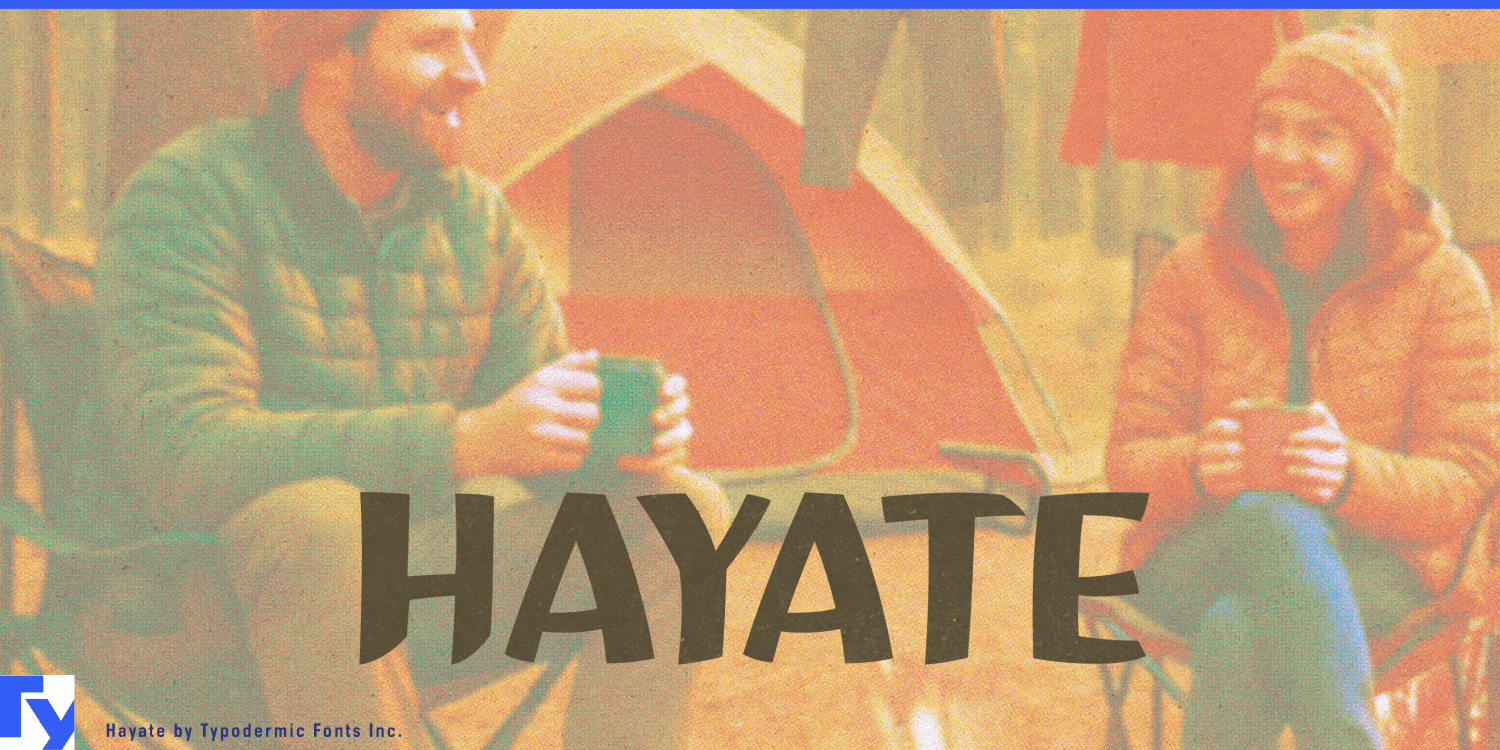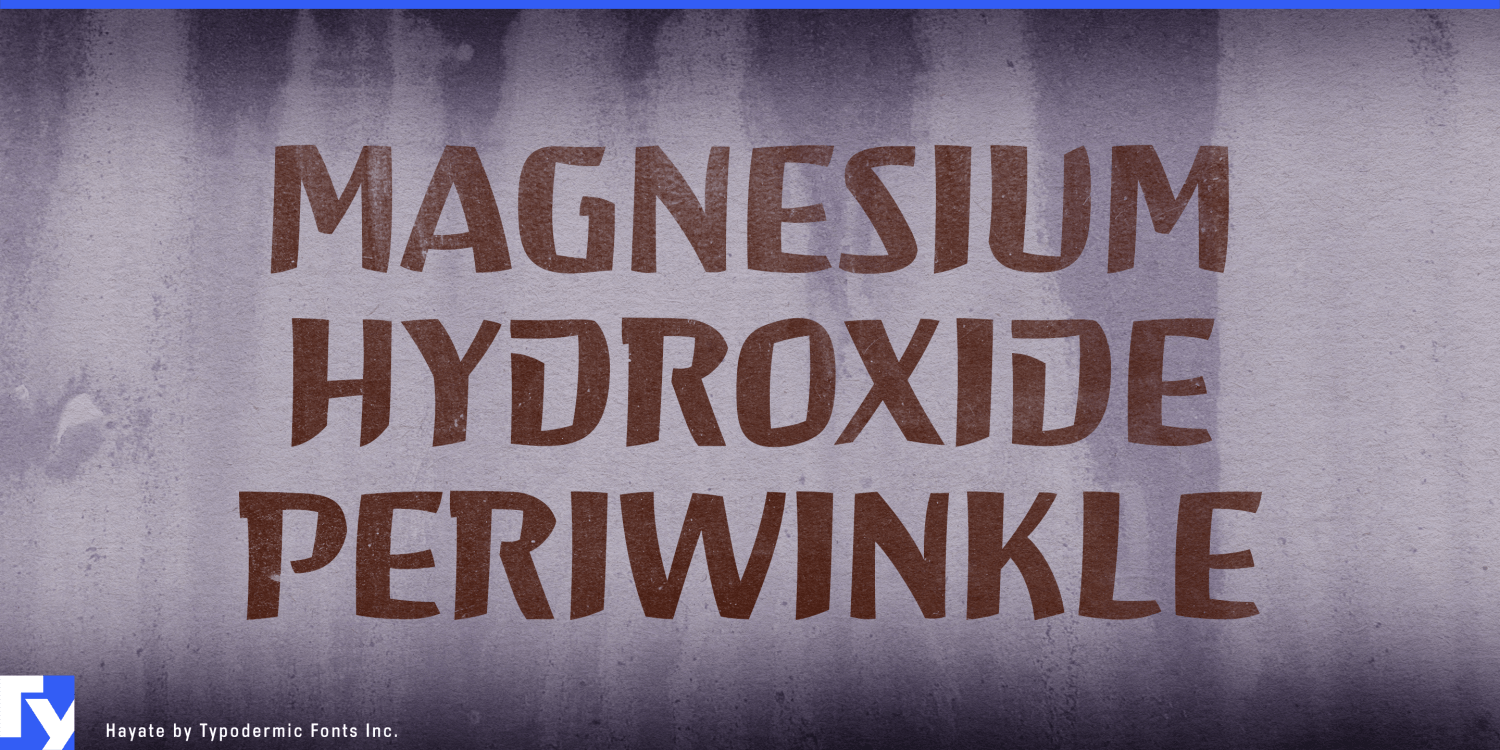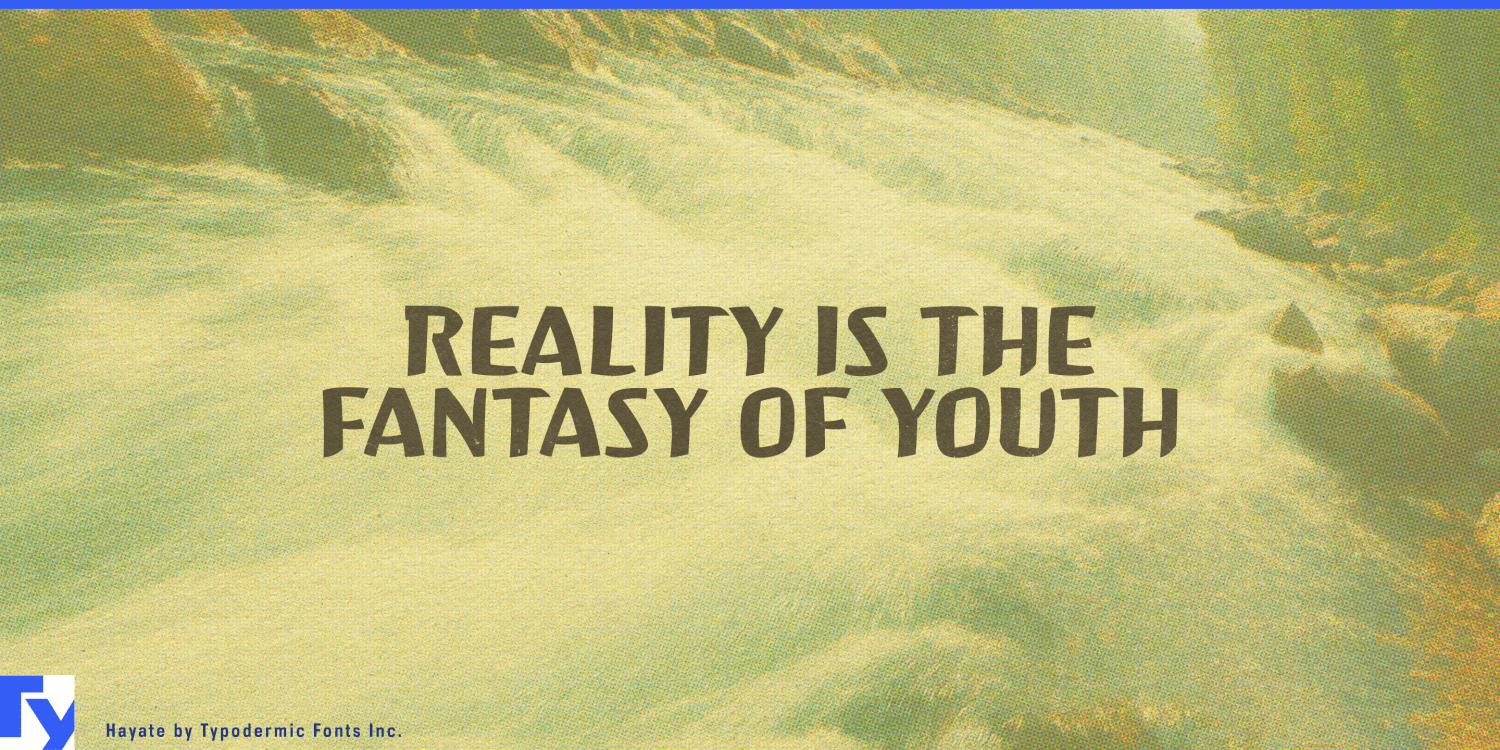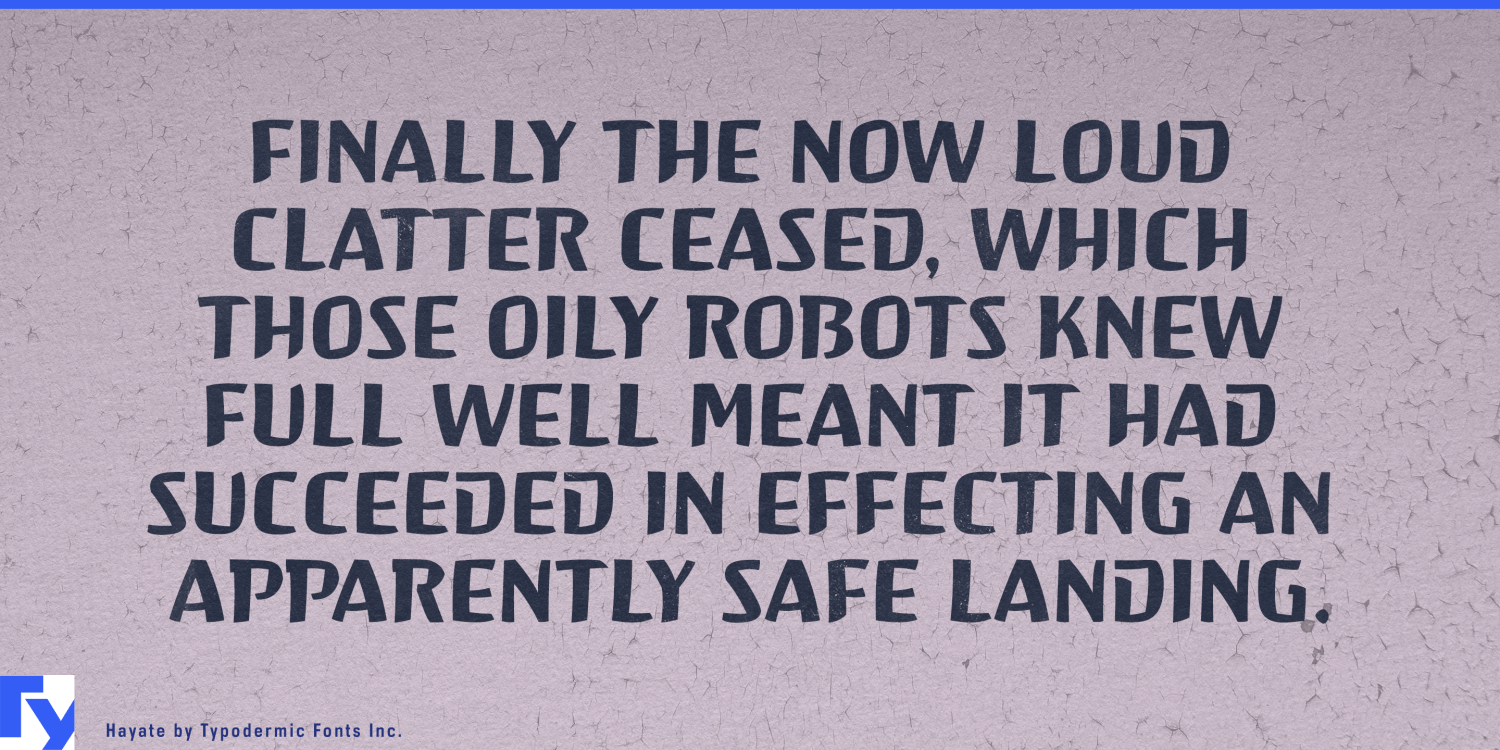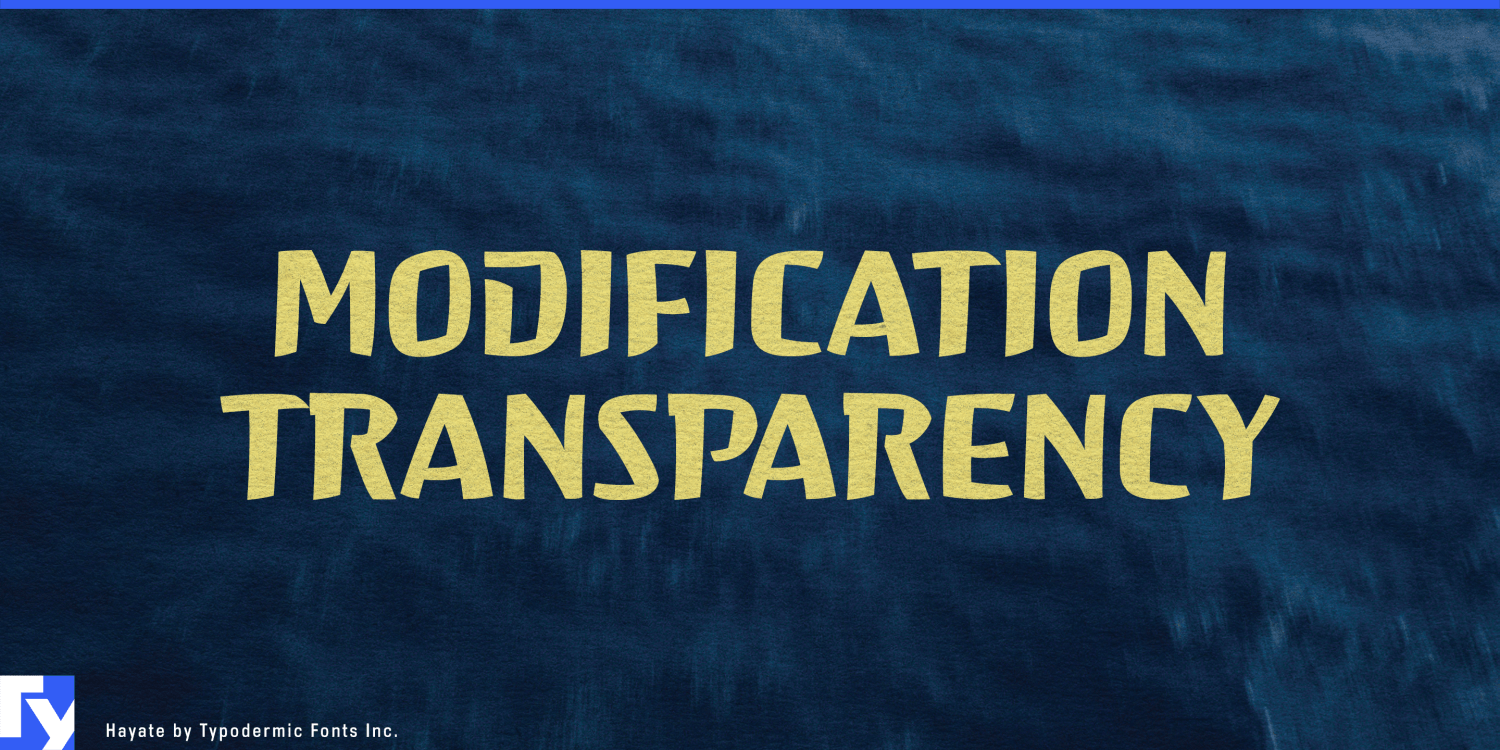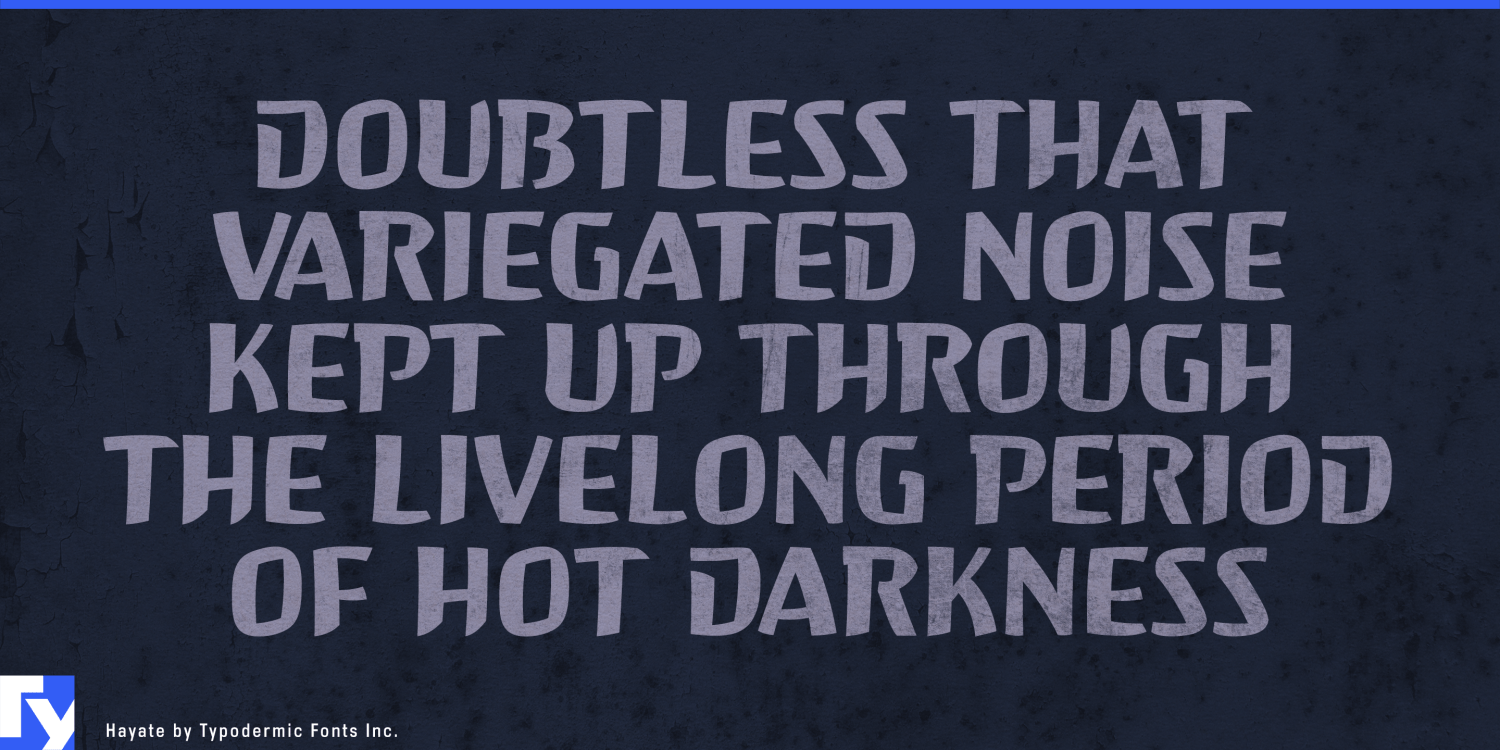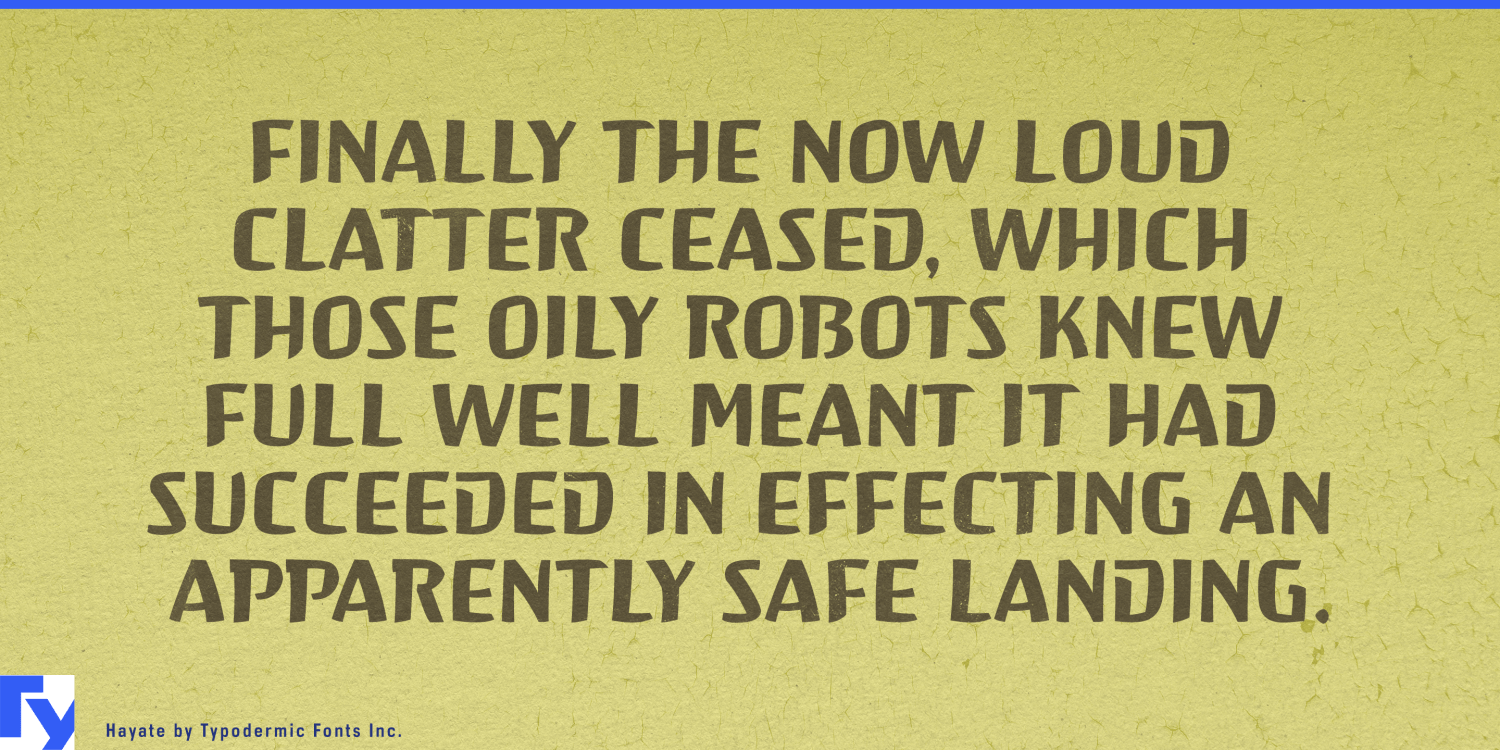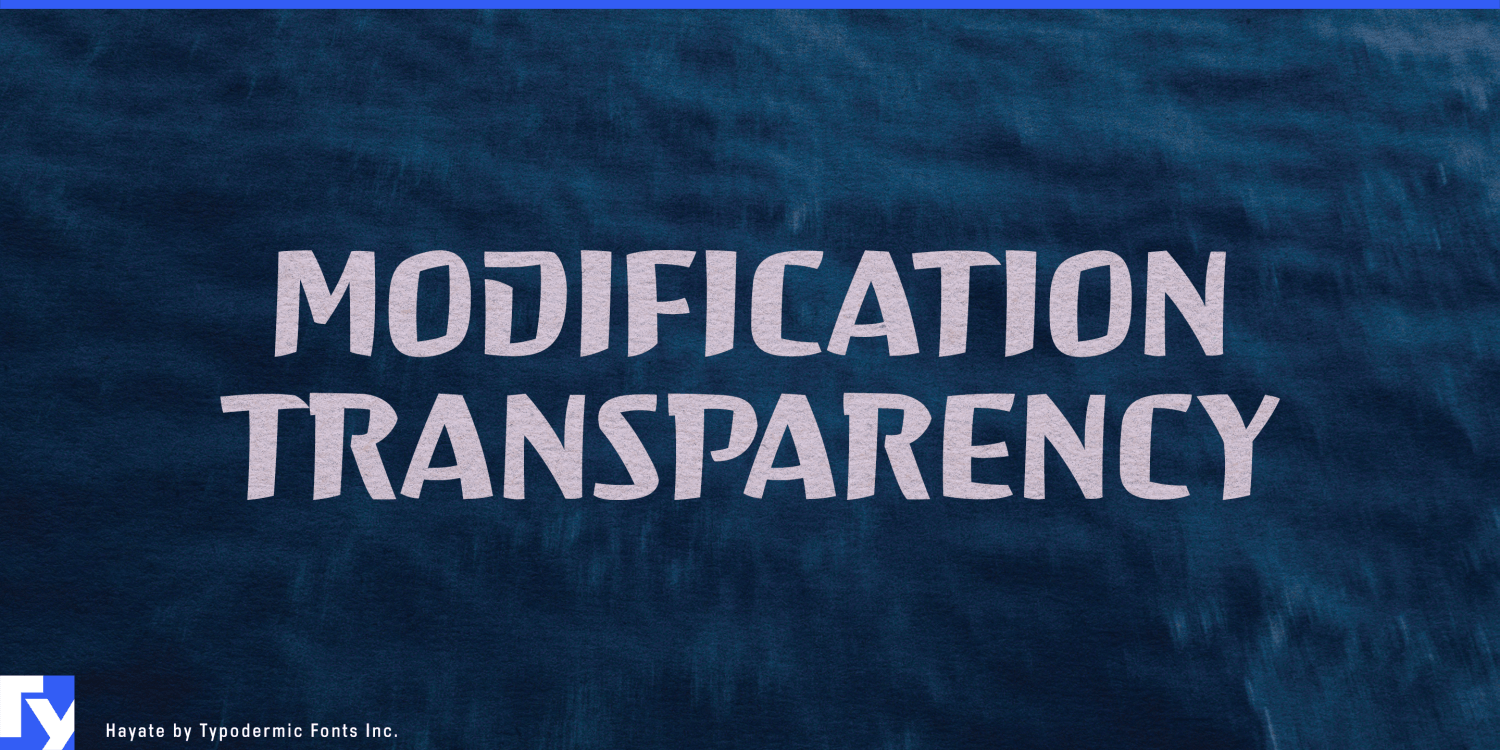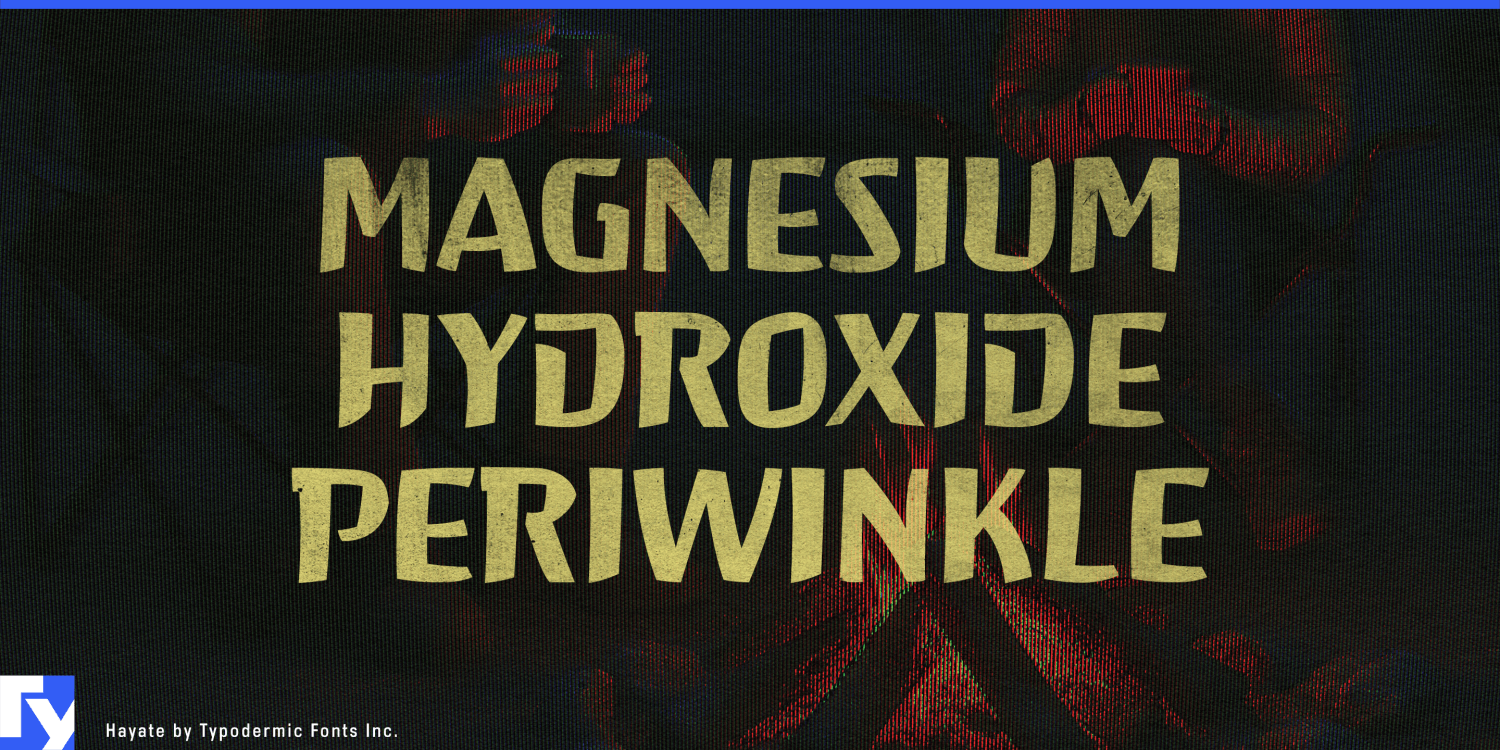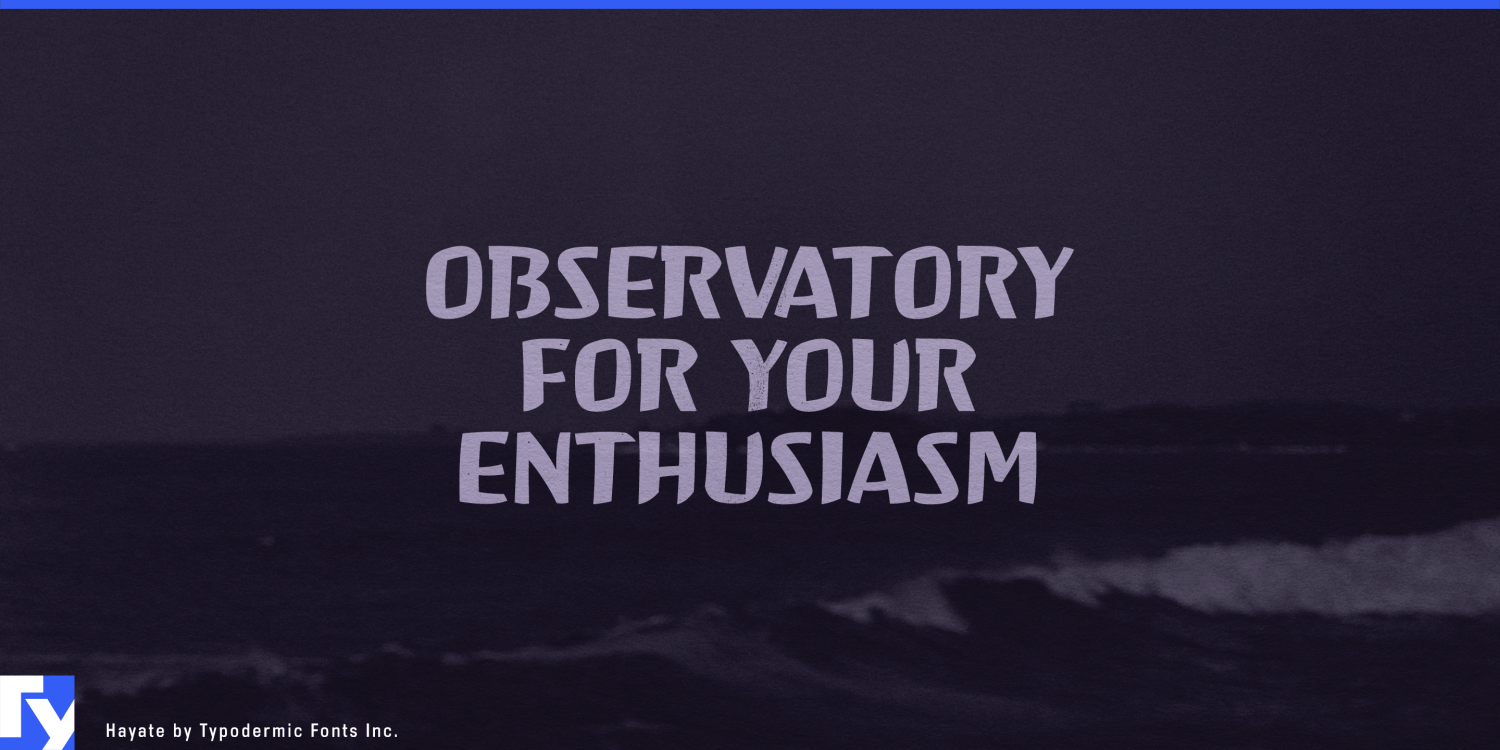
Hayate
Font Family by Typodermic
Outdoor products often get pushed toward one of three familiar typographic languages: military stencil for toughness, nostalgic park lettering for heritage, or polished geometric sans serif for premium technical gear. That leaves an awkward gap for equipment that is rugged without being tactical, contemporary without looking sterile, and outdoors-oriented without pretending it came from a 1930s ranger station. Hayate fills that gap with compact, angular capitals whose notched construction gives short words a hewn, practical quality.
That makes it particularly useful for equipment that sits somewhere between camping gear and field technology. Portable power stations, solar generators, camp stoves, water filters, expedition cases, rooftop-tent systems and modular camp kitchens all need product names that can live beside batteries, aluminum panels, molded housings and weather-resistant fabrics. Hayate can handle model-series names, equipment badges, cartons and trade-show headlines without falling back on stencil bridges, warning stripes or pseudo-military markings.
Off-grid power and remote infrastructure extend that role beyond recreation. Solar charging systems, portable battery arrays, water-purification equipment, satellite communication kits and modular field stations combine technology with environments where mud, weather and rough handling are expected. Hayate can supply the working, outdoor layer of the identity while a clean sans serif handles specifications and interface text.
The same language suits forestry and professional woodworking machinery. Portable sawmills, log splitters, arborist equipment, timber-framing tools and heavy workshop machinery can use Hayate for product-line names, equipment decals, trade-show graphics and packaging. Its constructed forms suggest material being cut and shaped rather than the generic aggression of a tactical stencil.
Camping and outdoor hospitality remain natural territory, especially for mountain lodges, cabin developments, trail centers, outdoor-sauna retreats and contemporary campgrounds. Hayate can handle cabin names, activity boards, equipment-rental areas and compact wayfinding without forcing the entire identity into vintage national-park styling.
Looking toward the early 2030s, Hayate also fits outdoor infrastructure built around repair, conservation and renewable power: solar-supported trail facilities, habitat-restoration bases, mobility-repair stations and remote research camps. Short labels such as FIELD STATION, TRAIL CREW and SOLAR BASE make particularly good use of its compact structure.
For television, streaming and game graphics, Hayate offers an alternative to the usual survival-show stencil. Expedition documentaries, remote-build series, overlanding programs, wilderness engineering and outdoor competition formats can use it for titles, location cards, challenge names and equipment graphics without making every activity look like a military operation.